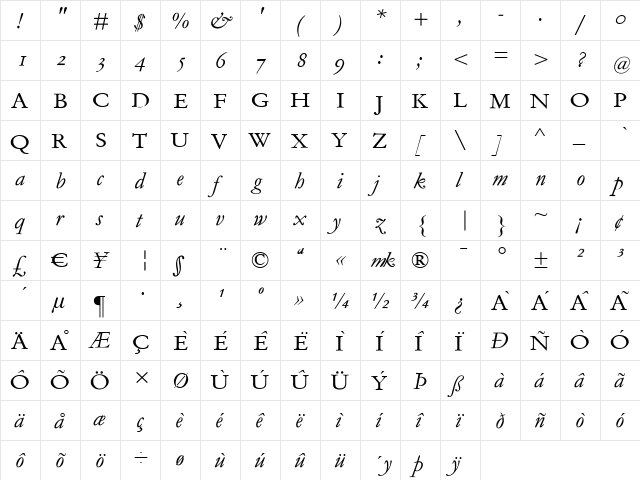
MediaevalItalique Regular
Design Context for MediaevalItalique Typeface
MediaevalItalique offers clean, dependable letterforms without strong stylistic allegiance, making it a practical choice for designers who need flexibility.